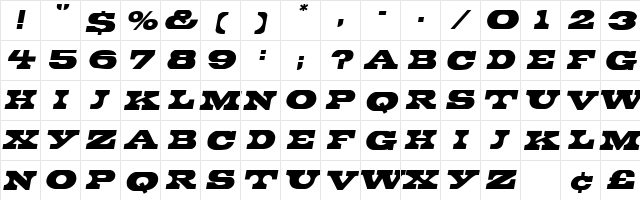
Peduncle Oblique
Design Context for Peduncle Typeface
Peduncle offers clean, dependable letterforms without strong stylistic allegiance, making it a practical choice for designers who need flexibility. The slanted form adds forward momentum and visual energy.
Pro Tip: Use Peduncle for emphasis, pull quotes, and subheadings where its slanted energy can add rhythm to the layout.